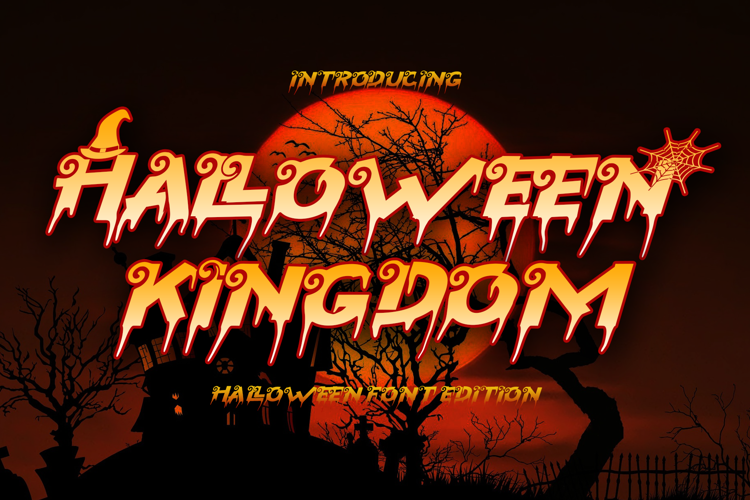
Halloween Kingdom Font
Halloween Kingdom is a cool and creepy display font. This font is PUA encoded which means you can access all of the glyphs and swashes with ease! Add it to each of your Halloween designs and notice how they instantly stand out.